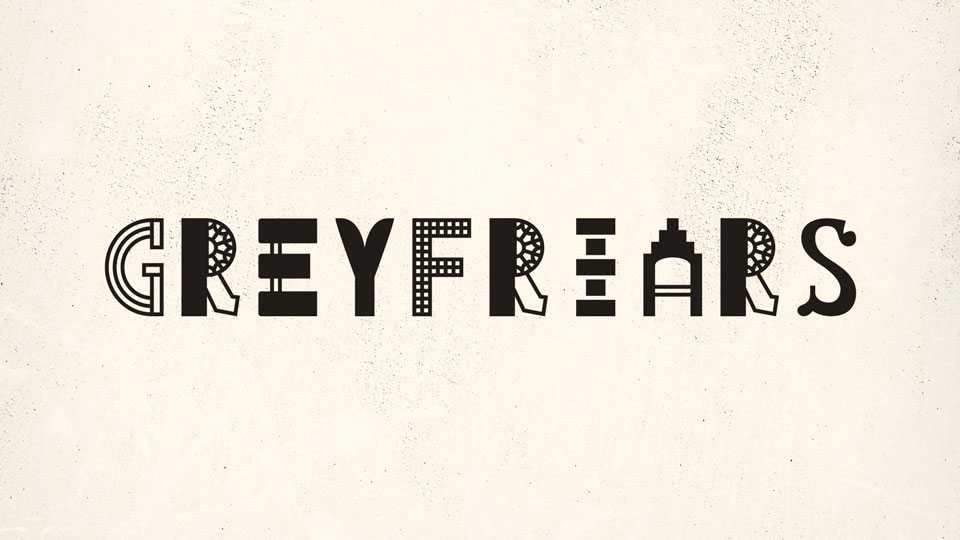
Download Greyfriars font, a display typeface inspired by the often overlooked architectural details within the Greyfriars conservation area in the heart of Leicester’s old town, UK.
Designer: Saria Digregorio